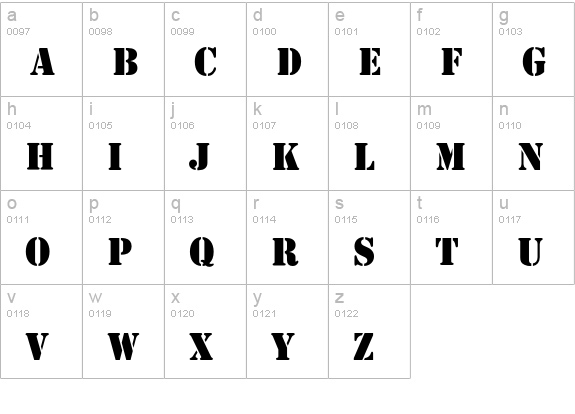
StencilEF Font Details
Introducing StencilEF, a bold and stylish font that effortlessly combines classic stenciled elements with a modern twist. This versatile typeface is perfect for making a statement in your designs, whether it's for posters, logos, or branding projects. The sharp edges and clean lines of StencilEF give a contemporary edge to any text, while still retaining a timeless appeal. What makes StencilEF even more appealing is that it is completely free to download at FontsMarket.com. This means you can access this high-quality font without any cost, making it an excellent choice for both personal and commercial projects. With its strong presence and impactful design, StencilEF is sure to elevate your creations and leave a lasting impression on your audience. Download StencilEF today and let your creativity shine!